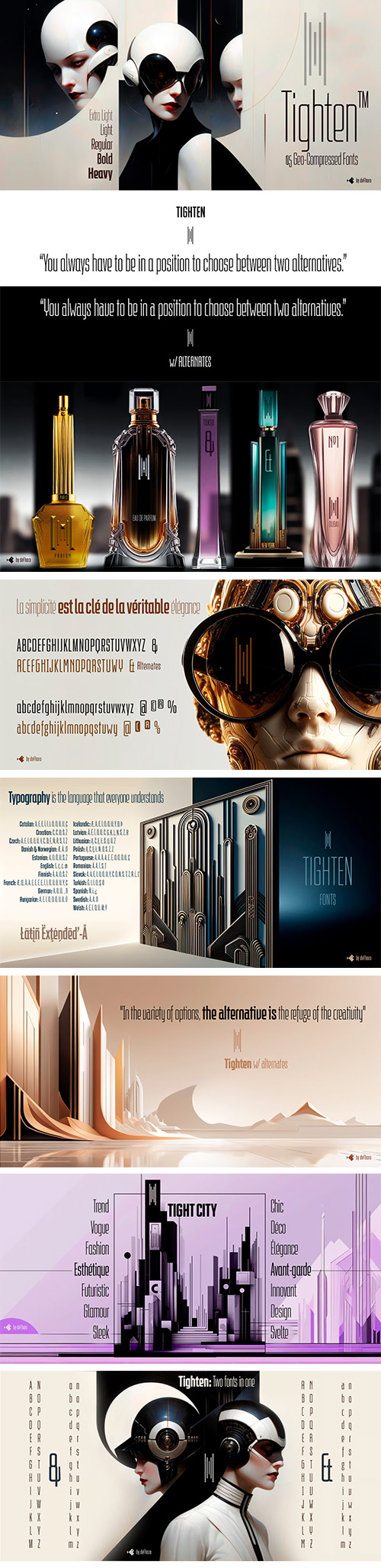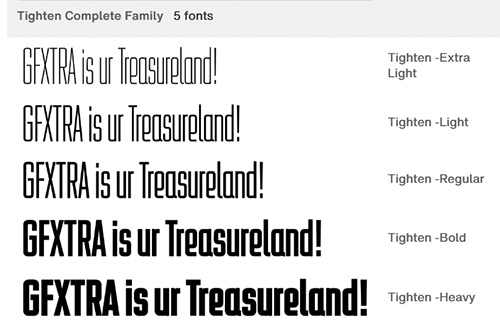
Tighten - 5 Styles Font Family by deFharo
- Tighten is a compressed sans serif typeface family, notable for its elegance derived from an exaggerated vertical proportion. Its style is a fusion of Art Deco and Futurism, giving it a distinctive and highly readable presence in any medium. Designed specifically for those seeking to stand out in graphic design, brand creation, publishing, videos, and editorial design, Tighten emphasizes consistency, functionality, and distinction.
Its ability to economize horizontal space without losing presence makes it an ideal choice for projects requiring clear and effective graphic differentiation.
Unique Features of Tighten
Precision and Technical Excellence